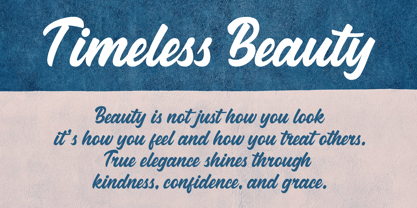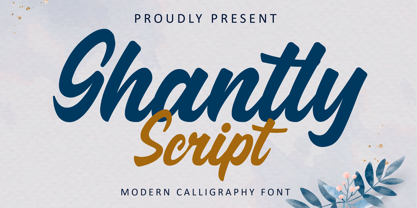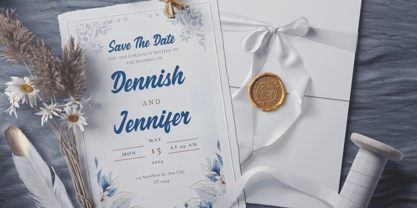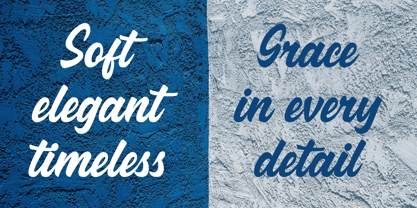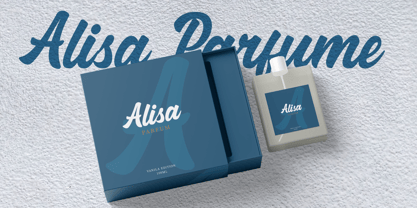
Ghantly
by Actype Studio
The Ghantly Font Family was designed by Aji Waluyo and published by Actype Studio. Ghantly contains 1 styles. More about this family
Ghantly Script is a modern calligraphy font that blends elegance and readability. With its flowing strokes, soft curves, and clean structure, this font is ideal for wedding invitations, beauty branding, feminine logos, social media posts, and other creative projects that demand a touch of charm and class. Let Ghantly Script bring graceful sophistication to your design.
Designers: Aji Waluyo
Current Foundry: Actype Studio